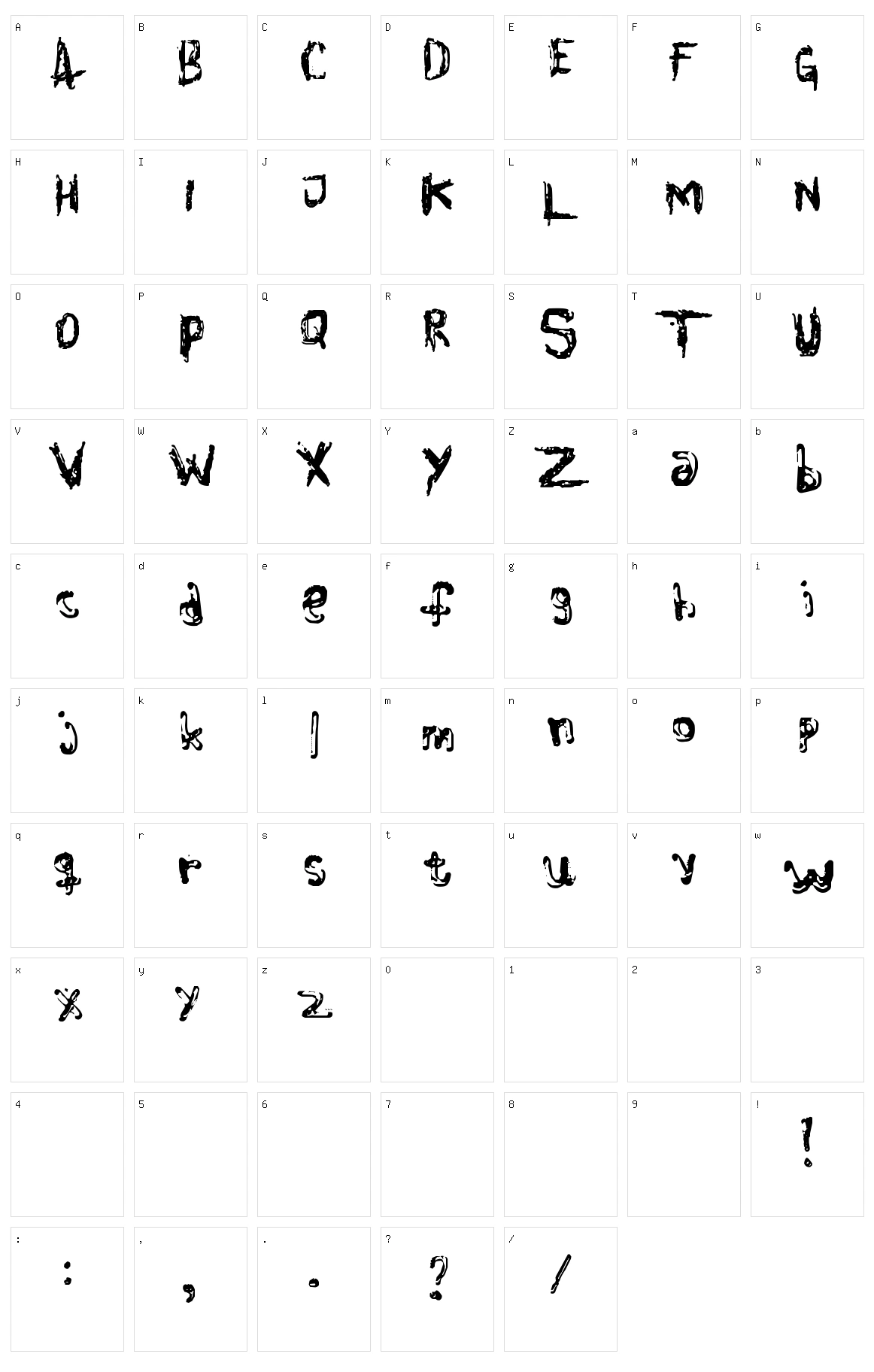
The free font Colour Blind is carefully designed by Mr.Fisk Fonts, showcasing a thoughtful balance of creativity and usability and falls under the Destroy font style. When you download the ZIP file, it contains only 18.19 KB of font files, making it lightweight and quick to download. Please review the license details below to understand permitted usage and distribution rights. If license information is not available, we recommend using this font for personal projects only or contacting the author directly for commercial usage permissions.